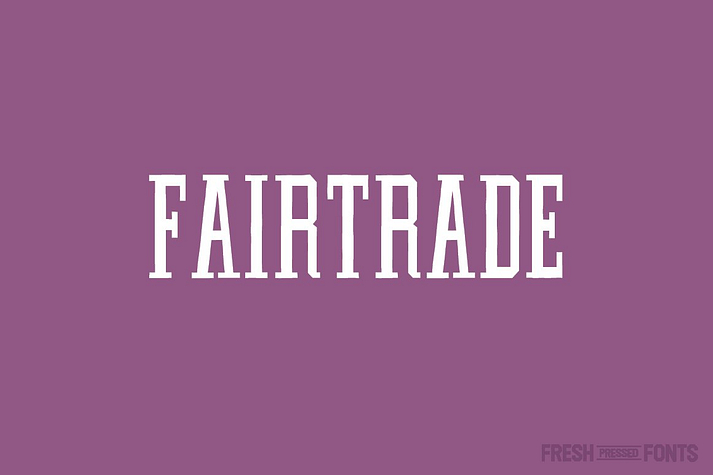
FAIRTRADE
Fairtrade is a hand display font family. This typeface has three styles and was published by Fresh Pressed Fonts.
Fairtrade is a new display font meant to meet all your organic and natural font needs. It’s constructed in a condensed serif face with rough edges to achieve a natural feel.
It holds strong as a lovely display face, having a whimsical feel throughout each weight that will help your design speak with more character than the average stuff font.
Fairtrade comes in 3 weights (Light Roast, Medium Roast, and Espresso).